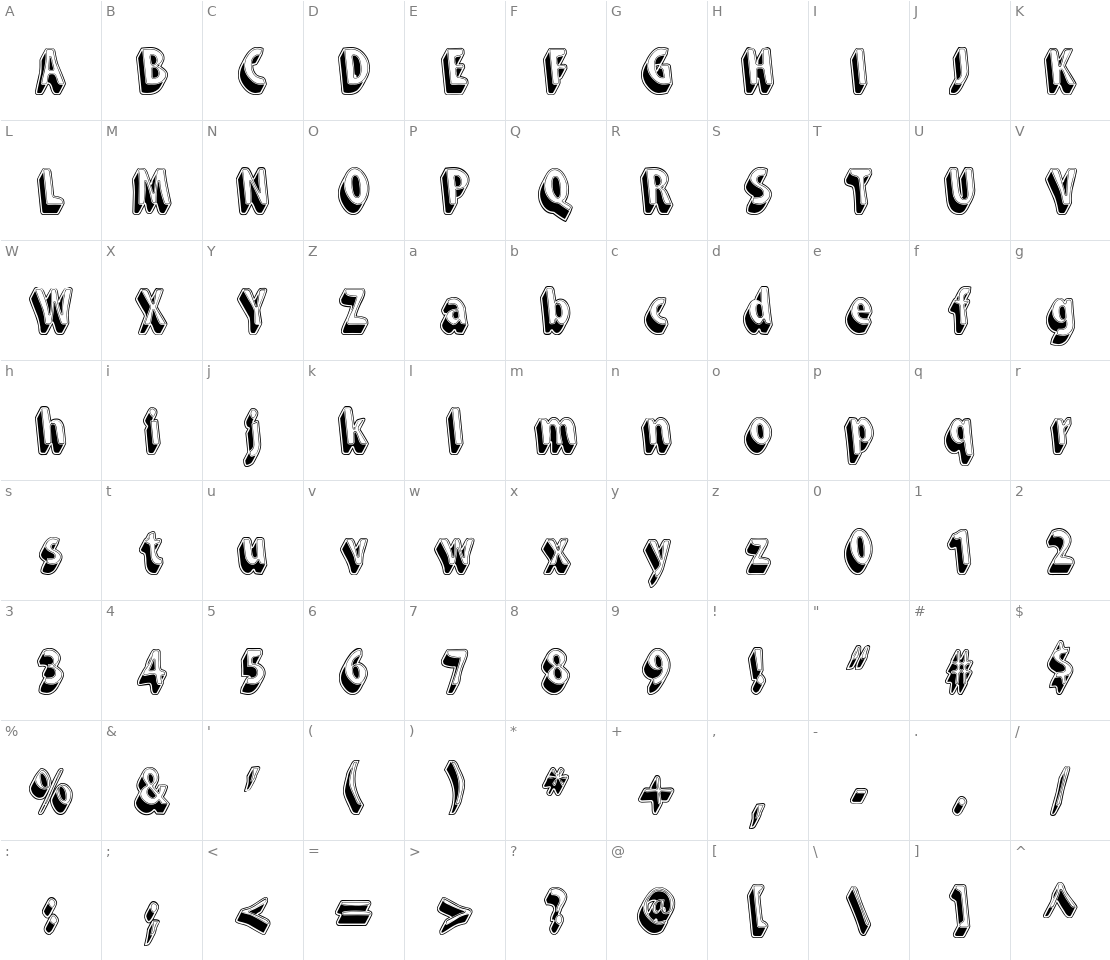
Snarky's Machine
Snarky's Machine is a bold, dimensional display face from Tioem with built-in 3D shadow effects that give each letter a chunky, extruded look. The vintage styling recalls mid-century sign painting and retro advertising typography, where depth and visual punch were everything. Best kept to headlines, posters, and display work where the dimensional effect has room to do its thing.